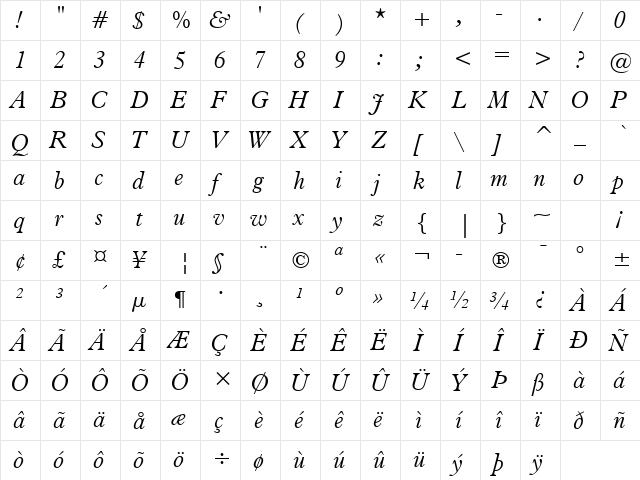
Aldine721 Lt BT Light Italic Font Preview
Design Context for Aldine721 Lt BT Typeface
Aldine721 Lt BT offers clean, dependable letterforms without strong stylistic allegiance, making it a practical choice for designers who need flexibility. The slanted form adds forward momentum and visual energy. The delicate stroke weight brings airiness and refinement to layouts.
Pro Tip: Try Aldine721 Lt BT for annotation and caption copy alongside an upright companion — the contrast in angle creates a dynamic but ordered typographic system.